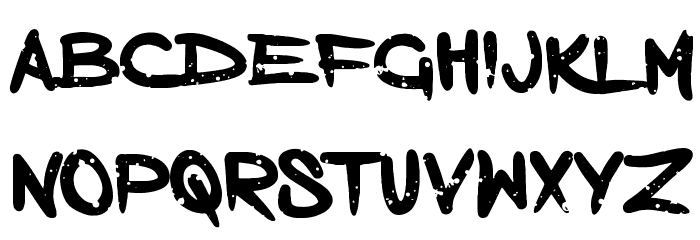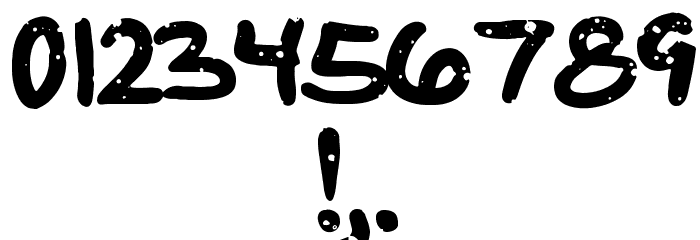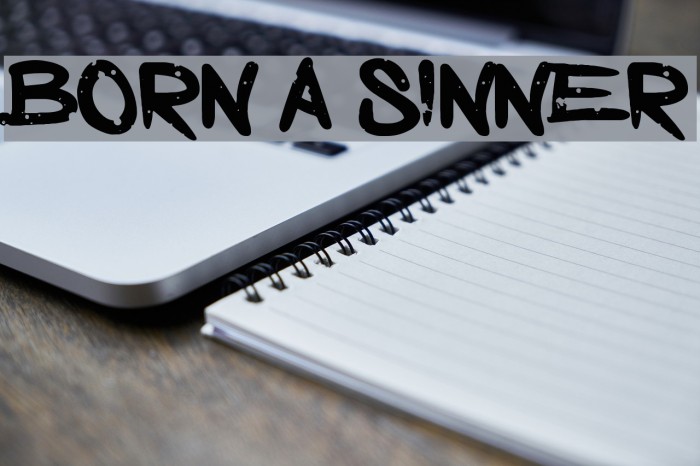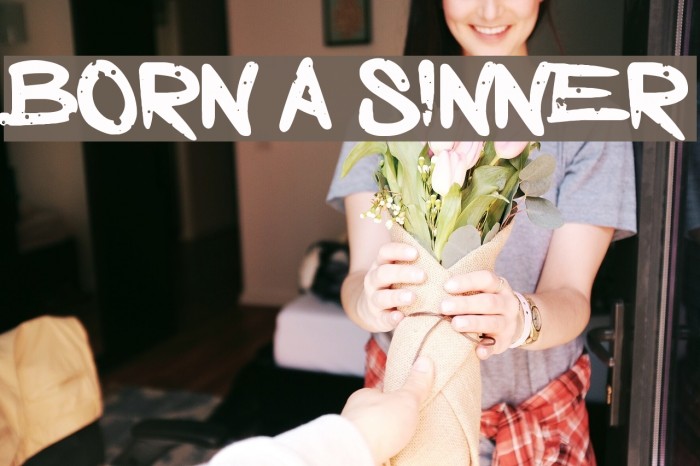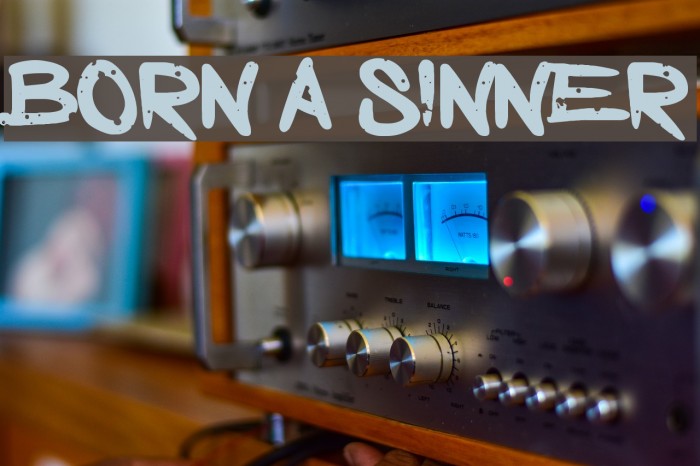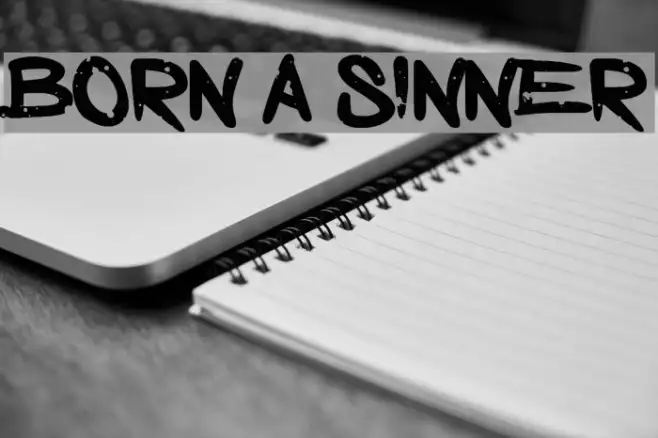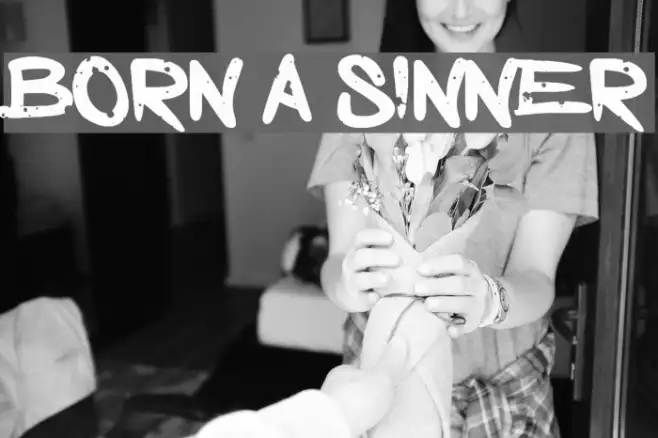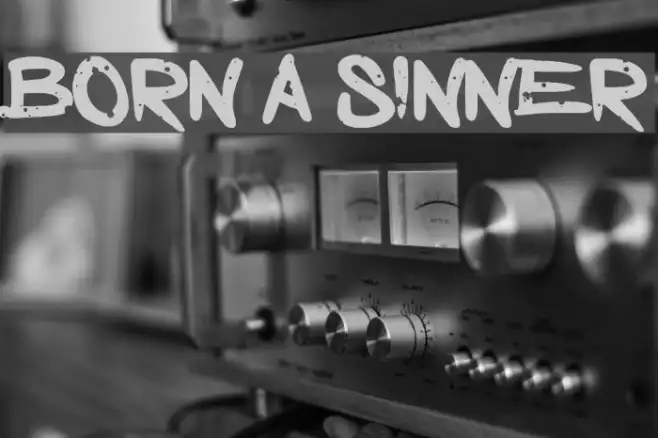
Born a Sinner Font
This font features a bold, graffiti-inspired style with a distressed texture that gives it an edgy, urban feel. The characters are thick and robust, with a hand-drawn appearance that adds a personal touch. The uppercase and lowercase letters maintain a consistent style, while the numbers and special characters complement the overall design. The font's rough edges and uneven lines contribute to its rebellious and dynamic aesthetic, making it stand out in any design project.
A bold, graffiti-style font with a distressed, urban look.
- Proposed Projects: Ideal for street art designs, music album covers, edgy posters, and urban-themed branding.
- Overall Style: Urban, Edgy, Graffiti
- Use Case: Logos, Posters, Album Covers